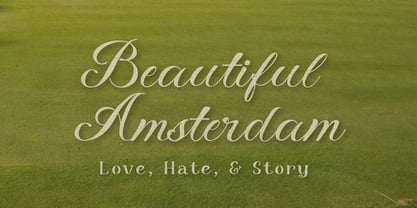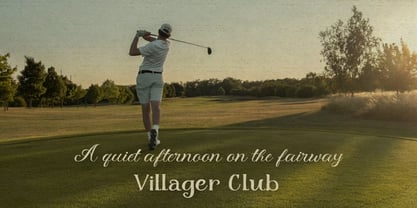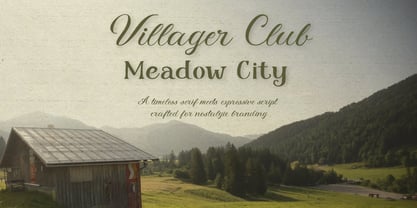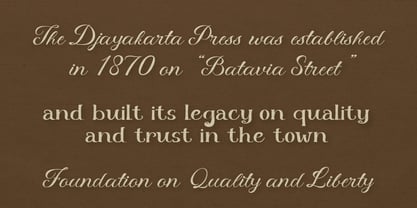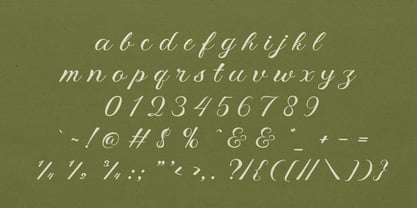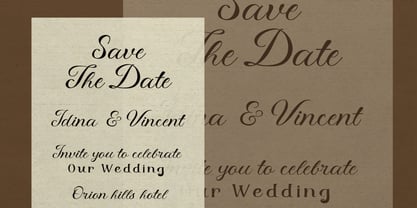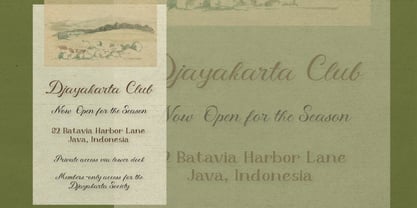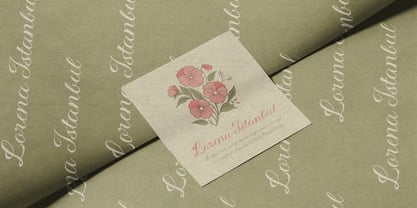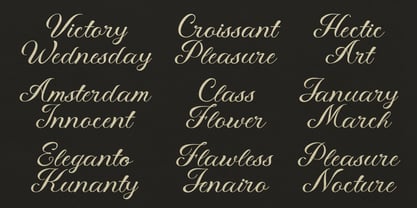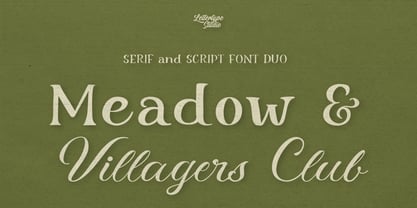
Meadow Villager Club
The Meadow Villager Club Font Family was designed by Diki Pradipta Tri Atmojo and published by Lettertype Studio. Meadow Villager Club contains 2 styles and family package options. More about this family
Meadow & Villager Club is a thoughtfully crafted font duo that blends a refined vintage serif with a natural, expressive script. Designed to evoke a sense of nostalgia and warmth, this pairing captures the essence of countryside living, artisanal branding, and timeless editorial design. The serif delivers structure and elegance, while the script adds a personal, handcrafted touch—creating a perfect visual harmony. Ideal for designers seeking both sophistication and personality, Meadow & Villager Club offers versatility across a wide range of creative projects. Whether used for branding, packaging, or wedding design, this duo creates a balanced typographic system that feels both classic and alive.